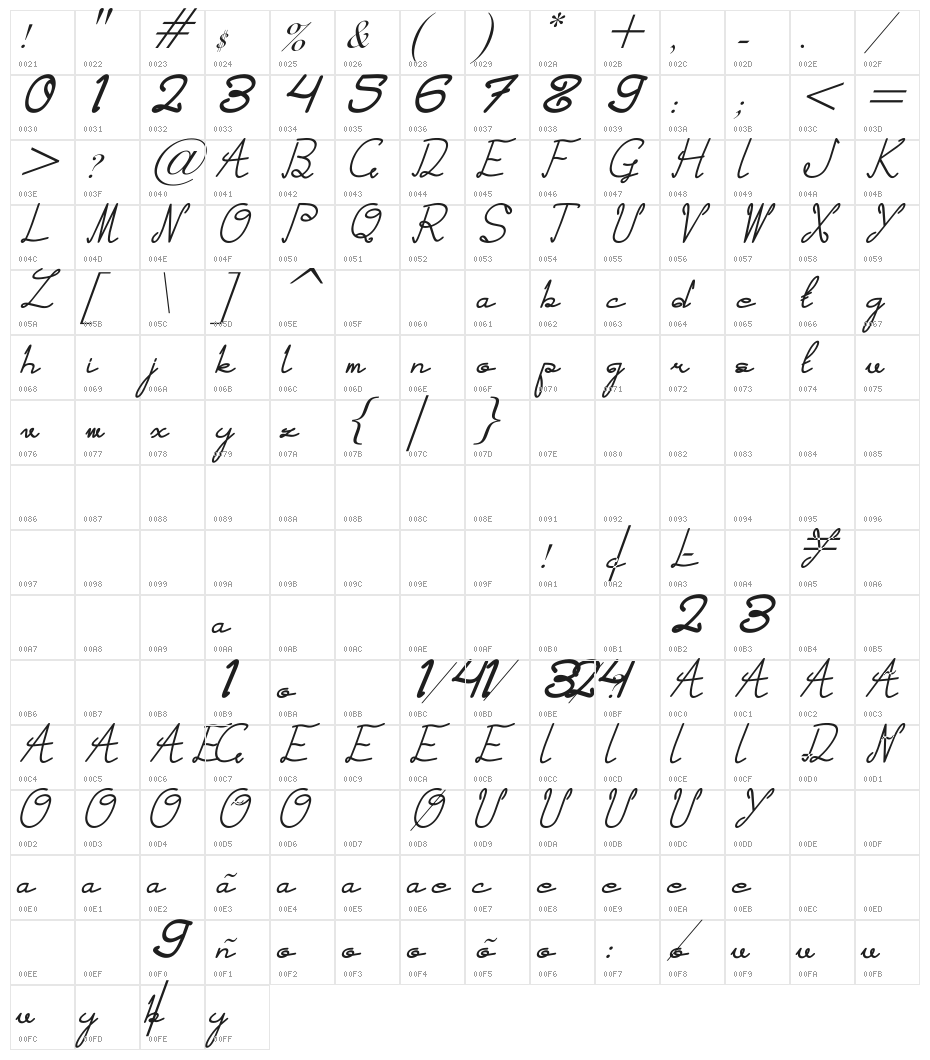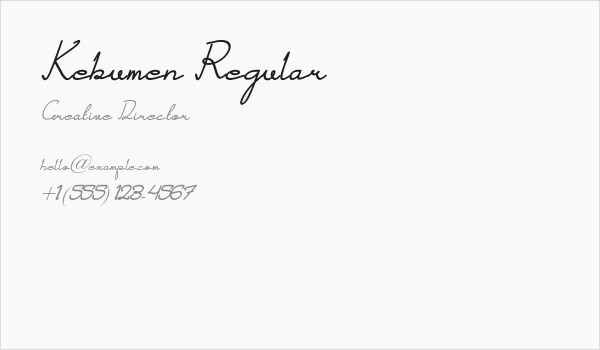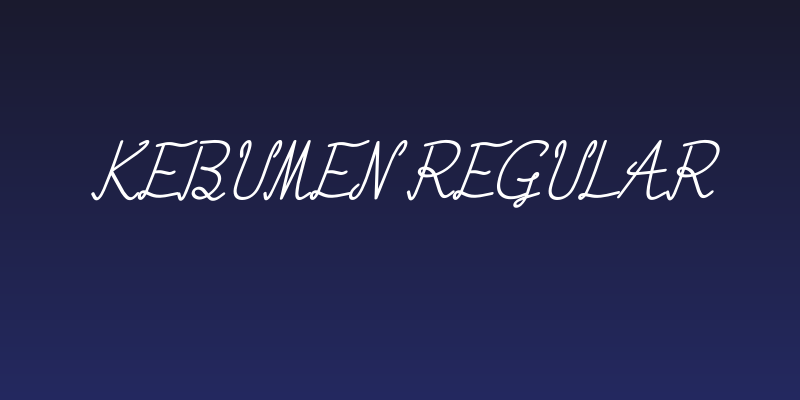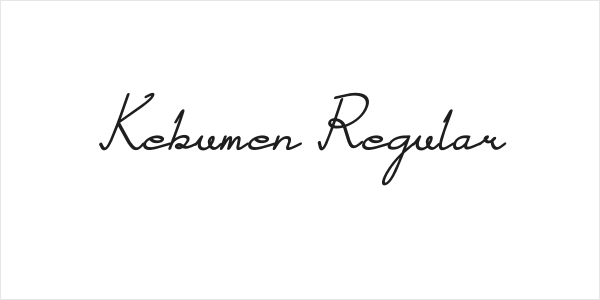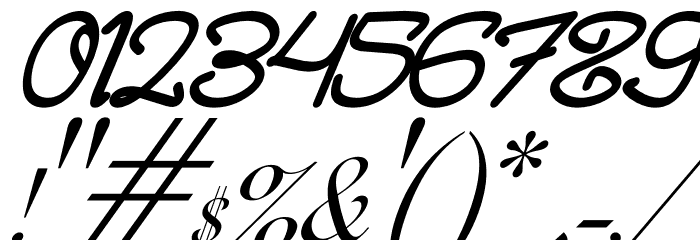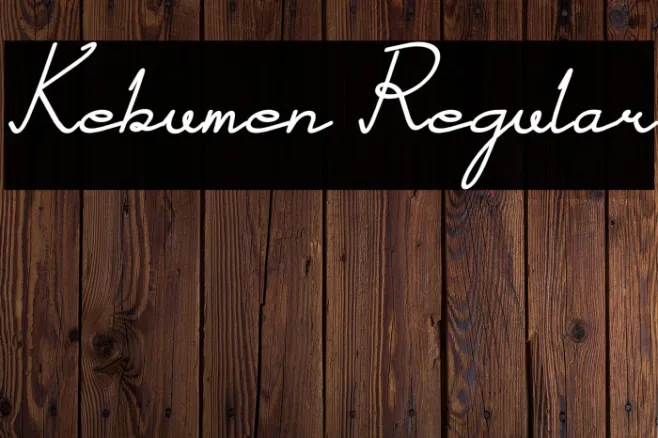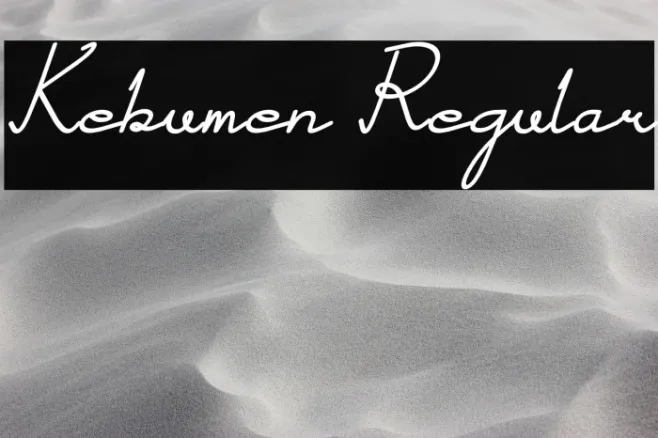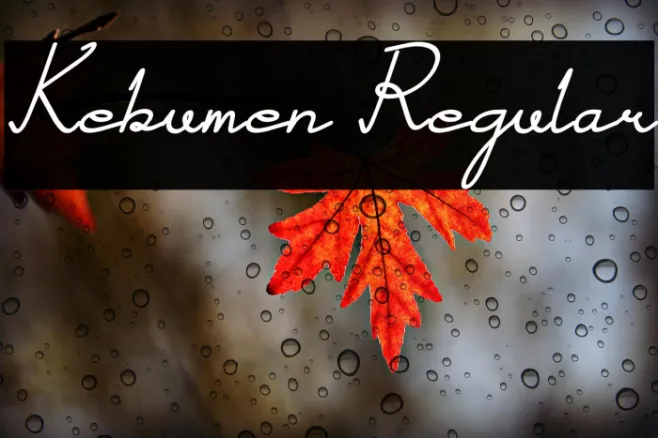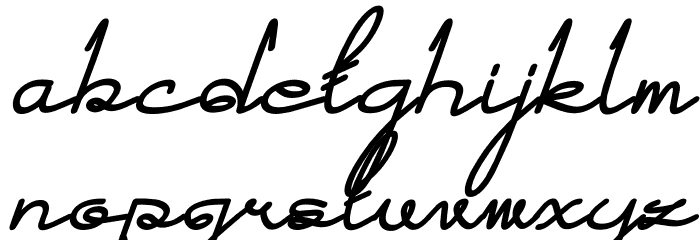
Kebumen Regular Font
Kebumen Regular Description
This font features a dynamic and flowing script style, characterized by its elegant and cursive letterforms. The uppercase letters exhibit a sophisticated flair with smooth, continuous strokes that seamlessly connect, while the lowercase letters maintain a consistent rhythm and fluidity. The numerals are designed with a similar cursive style, ensuring uniformity across all characters. Special characters are thoughtfully integrated, maintaining the overall aesthetic. This font exudes a sense of elegance and creativity, making it suitable for projects that require a personal and artistic touch.